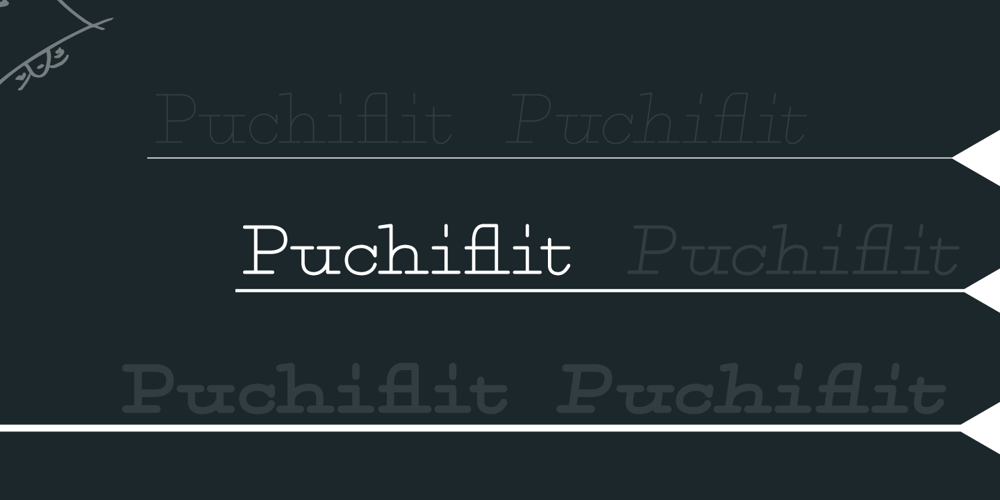
Puchiflit
Puchiflit font
Puchiflit Font Family was designed by Shuji Kikuchi and published by sugargliderz. Puchiflit contains 6 styles and family package options. Puchiflit is a typeface disguised as a pen script. I didn’t create this typeface by importing the letters on paper and tracing them into a computer with a draw application. So I think it’s a pseudo-pen script typeface. By the way, I used a famous Japanese maker’s felt-tip pen as a reference for line widths. I thought, “Isn’t this what it would look like if I wrote with this pen? I drew a line in the draw application while fantasizing about this.